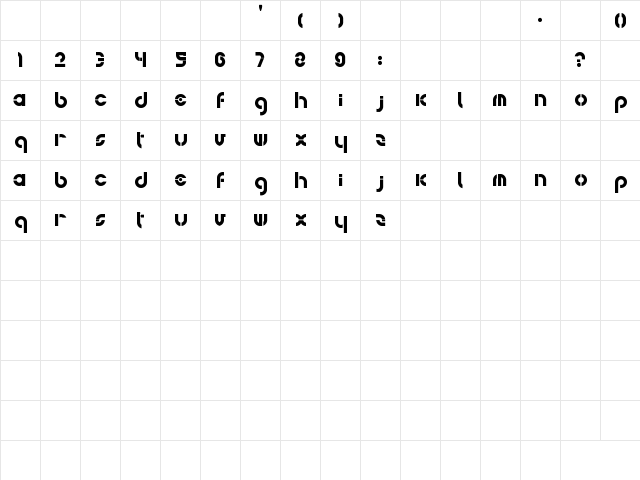
bohemica Regular
Design Context for bohemica Typeface
bohemica takes a measured approach to typography — its balanced proportions and neutral character make it a reliable workhorse for both digital and print work.